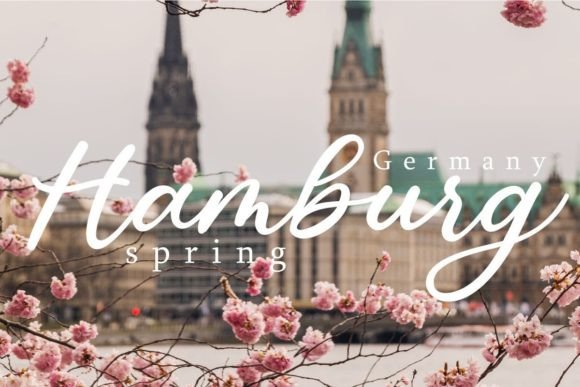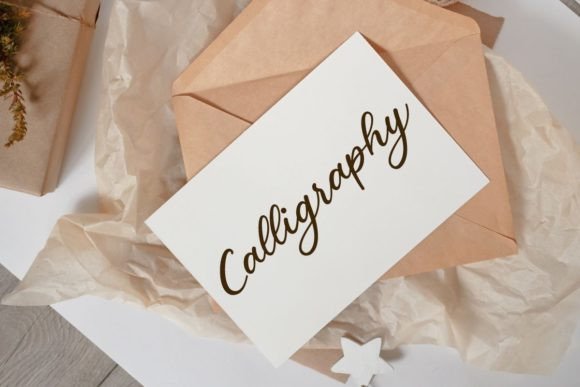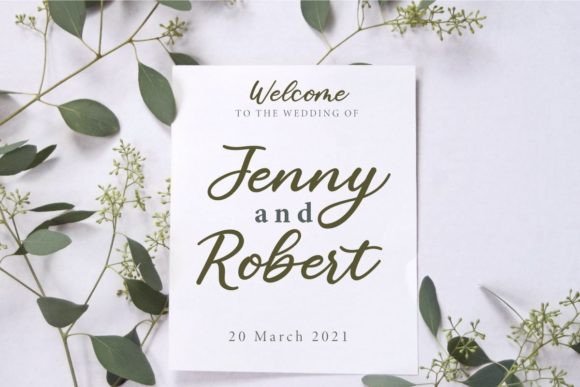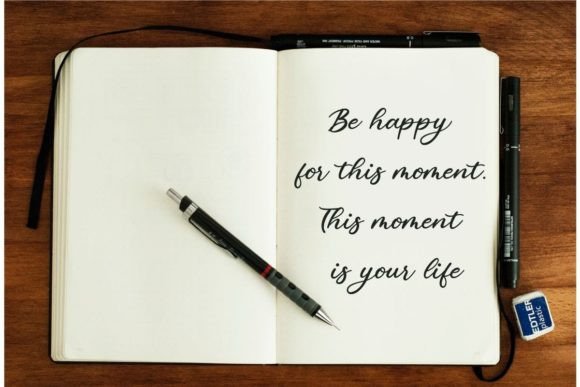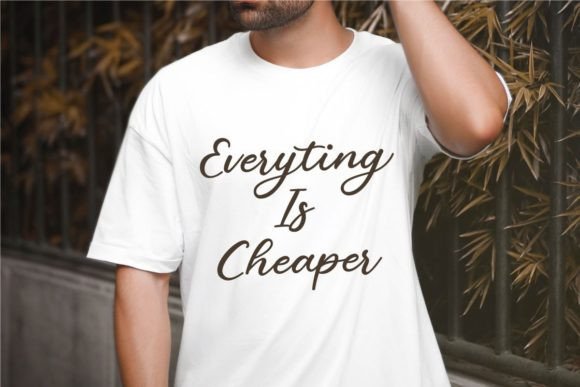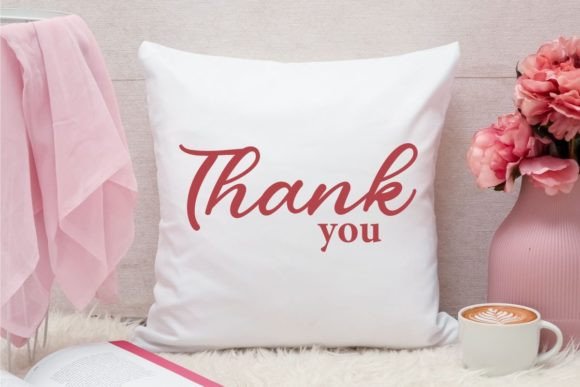
Gareth Font: Elevate Your Designs with a Beautiful Handwritten Style
Are you looking for a font that can add a touch of elegance and sophistication to your designs? Look no further than Gareth Font, a stunning handwritten font that is perfect for a wide range of projects. In this article, we’ll explore the features and benefits of Gareth Font, and show you how to use it to take your designs to the next level.
What is Gareth Font?
Gareth Font is a beautiful handwritten font that is designed to help you create stunning typography for your designs. With its elegant and flowing script, Gareth Font is perfect for adding a touch of sophistication and style to any project. Whether you’re working on a wedding invitation, social media post, or product packaging, Gareth Font is the perfect choice.
Features of Gareth Font
Gareth Font has a number of features that make it an ideal choice for designers and crafters. Some of the key features include:
- Handwritten style: Gareth Font has a beautiful handwritten style that adds a touch of elegance and sophistication to any design.
- Versatile: Gareth Font is perfect for a wide range of projects, from wall displays and wedding invitations to social media posts and product packaging.
- High-quality: Gareth Font is a high-quality font that is designed to produce crisp and clear text, even at small sizes.
Uses for Gareth Font
Gareth Font is a versatile font that can be used for a wide range of projects. Here are some ideas to get you started:
- Wall displays: Use Gareth Font to create stunning wall displays for your home or office.
- Wedding invitations: Gareth Font is perfect for wedding invitations, adding a touch of elegance and sophistication to your special day.
- Social media posts: Use Gareth Font to create eye-catching social media posts that stand out from the crowd.
- Logos and branding: Gareth Font is perfect for creating logos and branding materials that are both stylish and professional.
- Product packaging: Use Gareth Font to add a touch of elegance and sophistication to your product packaging.
- Product designs: Gareth Font is perfect for creating stunning product designs that showcase your brand’s style and personality.
- Labels and stickers: Use Gareth Font to create eye-catching labels and stickers that stand out from the crowd.
- Photography: Gareth Font is perfect for adding text and watermarks to your photos.
- Invitations and stationery: Use Gareth Font to create beautiful invitations and stationery that are both stylish and professional.
Tips for Using Gareth Font
Here are some tips for getting the most out of Gareth Font:
- Experiment with different sizes and colors: Gareth Font looks great in a variety of sizes and colors, so don’t be afraid to experiment and find the perfect combination for your design.
- Use it with other fonts: Gareth Font pairs well with a variety of other fonts, so try using it with other fonts to create a unique and stylish design.
- Pay attention to spacing and kerning: Make sure to pay attention to the spacing and kerning of your text to ensure that it looks professional and polished.
Gareth Font is a beautiful handwritten font that is perfect for designers and crafters who want to add a touch of elegance and sophistication to their designs. With its versatile style and wide range of uses, Gareth Font is an ideal choice for anyone looking to create stunning typography. Whether you’re working on a wedding invitation, social media post, or product packaging, Gareth Font is the perfect choice.